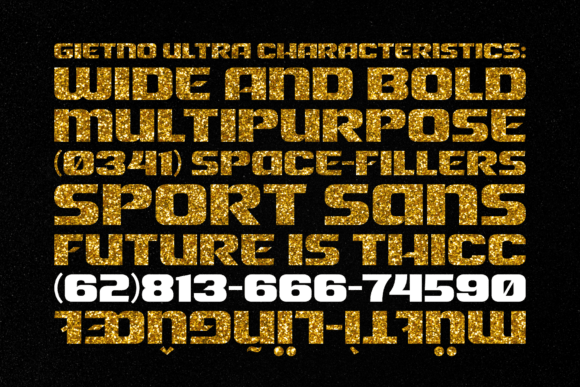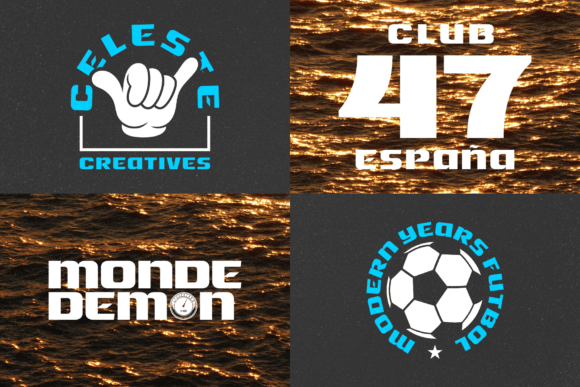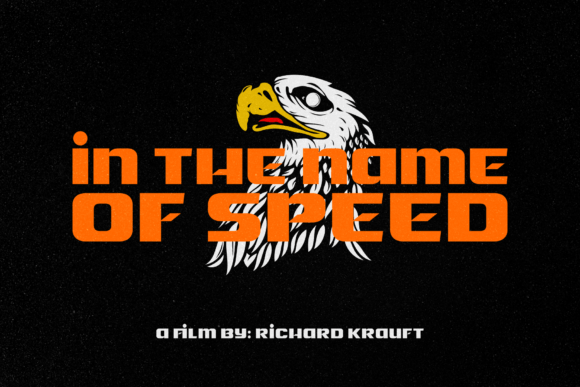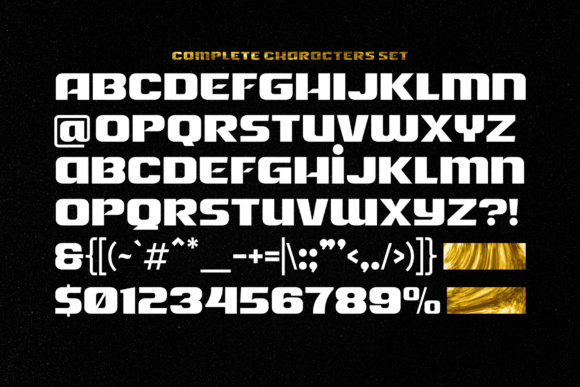
Gietno Ultra Font: A Bold and Readable Typeface for Your Projects
Are you tired of using the same old fonts in your designs? Look no further than the Gietno Ultra Font, a bold and eye-catching typeface that’s sure to make your projects stand out. Designed with a bold personality, Gietno Ultra gives it an “in your face!” feeling, but still maintains its readability, making it perfect for designers and crafters looking to add a touch of personality to their work.
The Story Behind Gietno Ultra Font
Gietno Ultra Font is a carefully crafted typeface that’s designed to make a statement. Its bold and edgy design makes it perfect for projects that require a bit of attitude, from posters and flyers to logos and branding materials. But what really sets Gietno Ultra apart is its commitment to readability, making it a versatile font that can be used in a wide range of applications.
Key Features of Gietno Ultra Font
• Bold and Edgy Design: Gietno Ultra Font has a bold and edgy design that’s sure to grab attention.
• High Readability: Despite its bold design, Gietno Ultra Font remains highly readable, even at smaller sizes.
• Versatile: Gietno Ultra Font can be used in a wide range of applications, from posters and flyers to logos and branding materials.
• Unique Personality: Gietno Ultra Font has a unique personality that’s sure to make your projects stand out from the crowd.
Why Designers and Crafters Love Gietno Ultra Font
So why do designers and crafters love Gietno Ultra Font? For one, its bold and edgy design makes it perfect for projects that require a bit of attitude. Additionally, its high readability makes it a versatile font that can be used in a wide range of applications. But perhaps most importantly, Gietno Ultra Font has a unique personality that’s sure to make your projects stand out from the crowd.
• Use it as a headline font: Gietno Ultra Font is perfect for headlines and titles, where its bold and edgy design can really make an impact.
• Pair it with a serif font: For body text, pair Gietno Ultra Font with a serif font to create a nice contrast and add visual interest to your design.
• Experiment with different colors: Gietno Ultra Font looks great in a wide range of colors, so don’t be afraid to experiment and find the perfect color for your project.
Font Name Gietno Ultra Font
In conclusion, Gietno Ultra Font is a bold and eye-catching typeface that’s perfect for designers and crafters looking to add a touch of personality to their work. With its bold and edgy design, high readability, and unique personality, Gietno Ultra Font is sure to make your projects stand out from the crowd. So why wait? Add Gietno Ultra Font to your projects today and enjoy the results!
• What is Gietno Ultra Font?: Gietno Ultra Font is a bold and eye-catching typeface designed for use in a wide range of applications.
• Is Gietno Ultra Font readable?: Yes, despite its bold design, Gietno Ultra Font remains highly readable, even at smaller sizes.